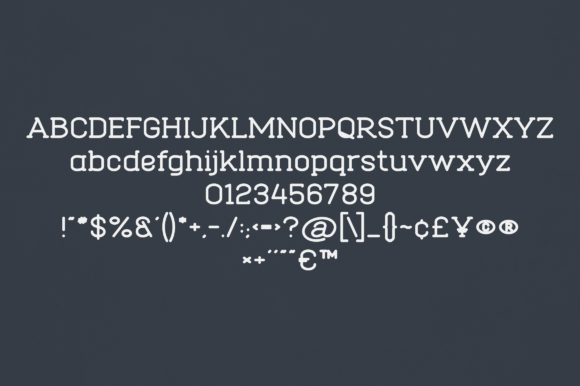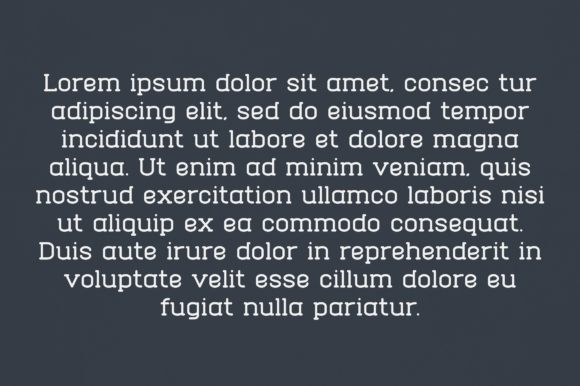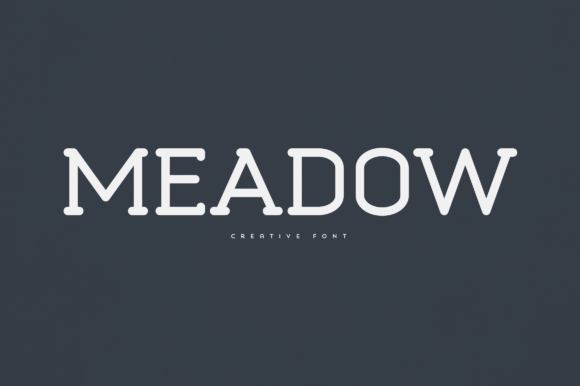
Meadow
About Meadow
Meadow is an elegant and versatile slab serif font that will make your typography truly unique! It will enchant every logo, branding, headline, or plain text!